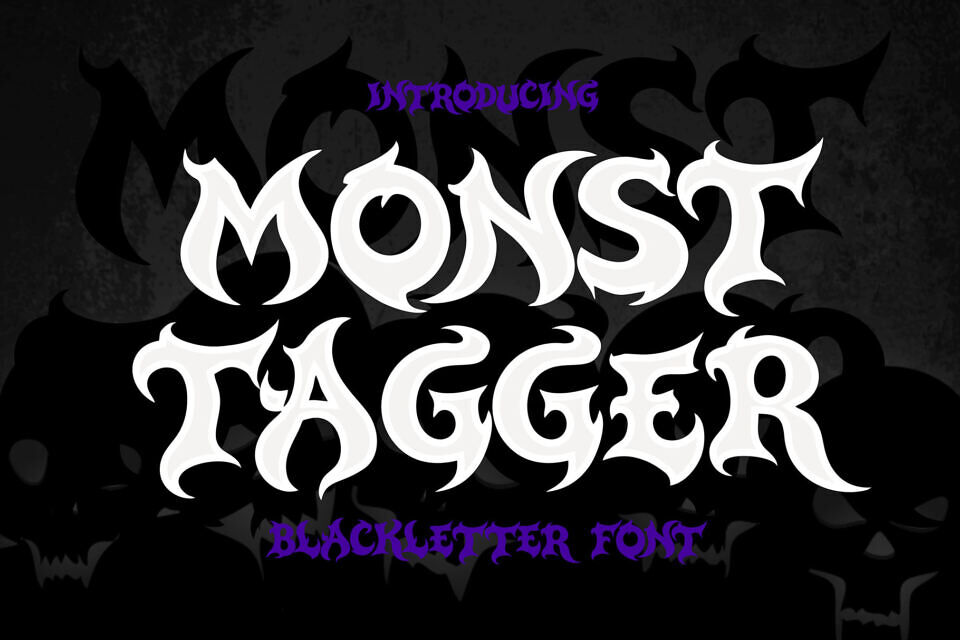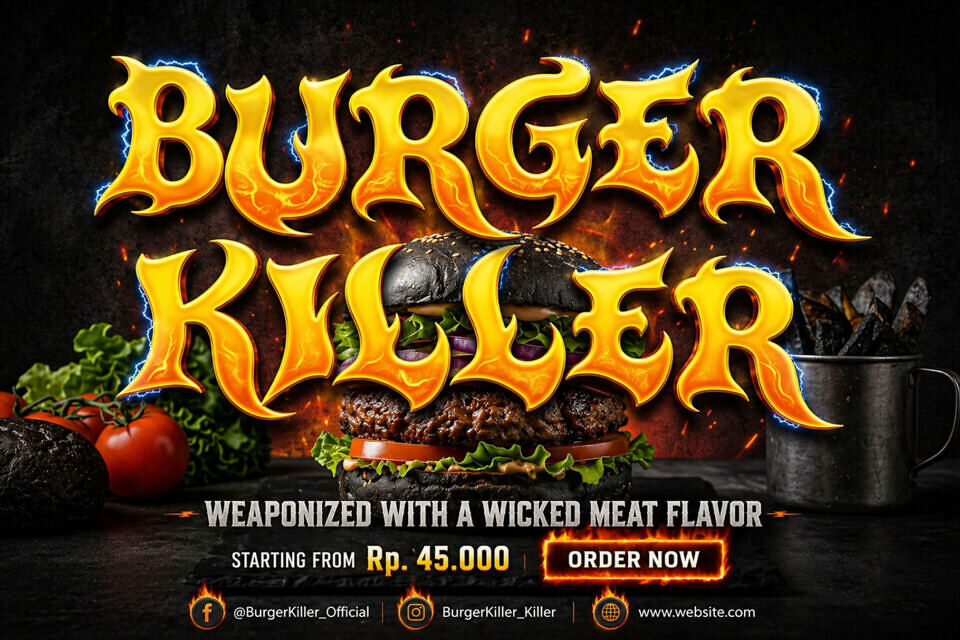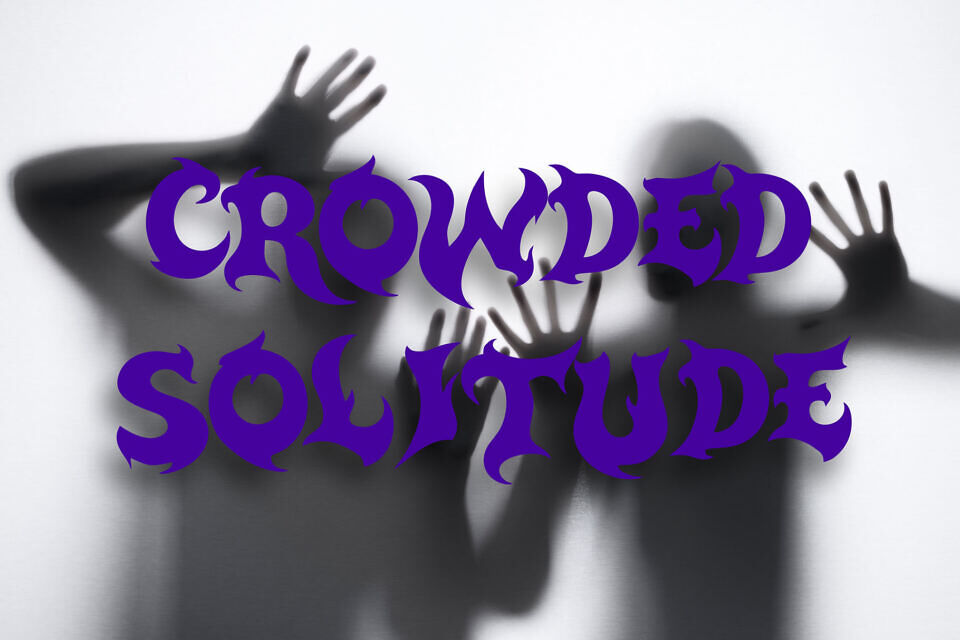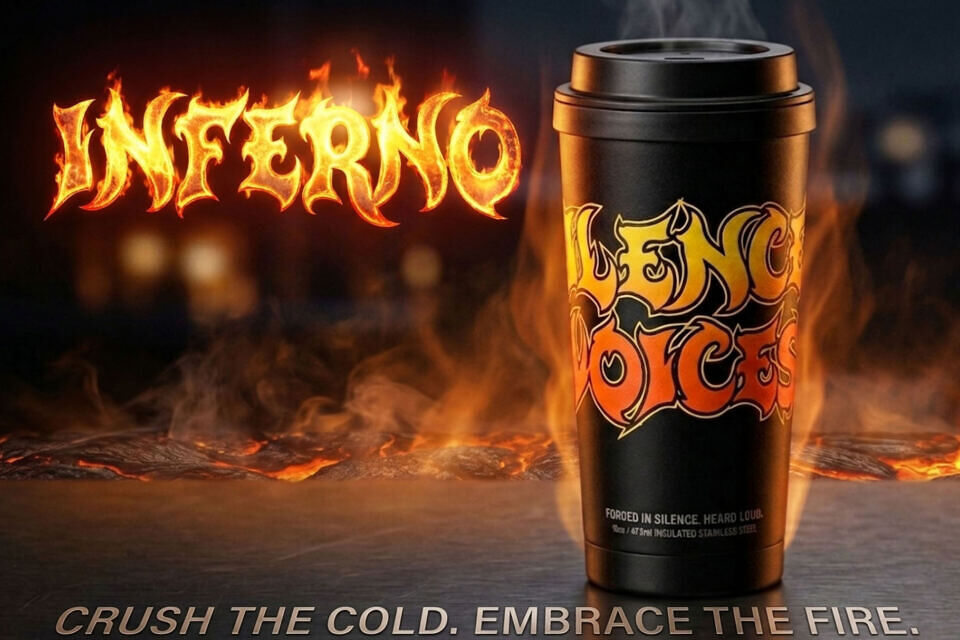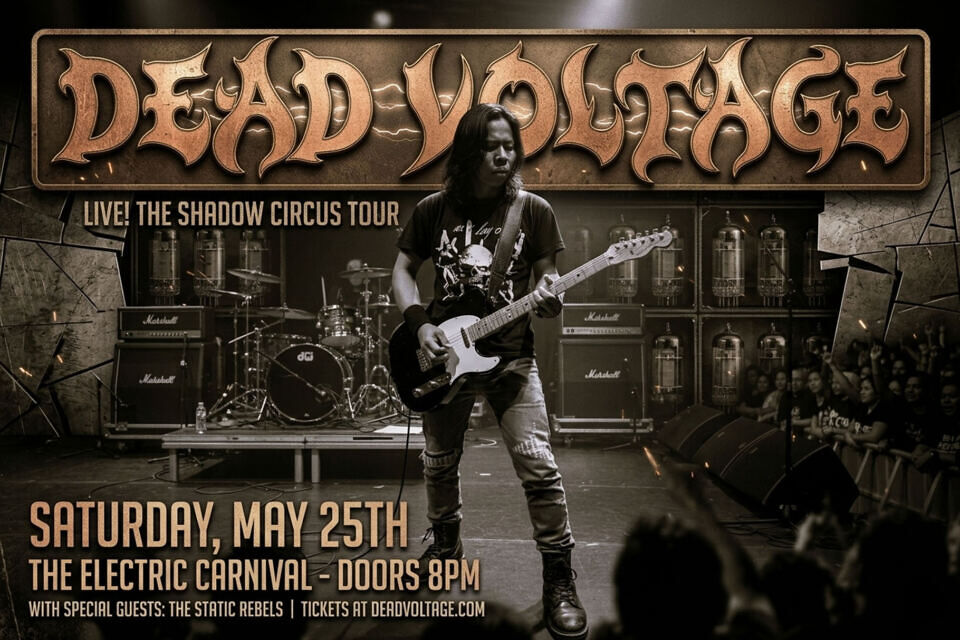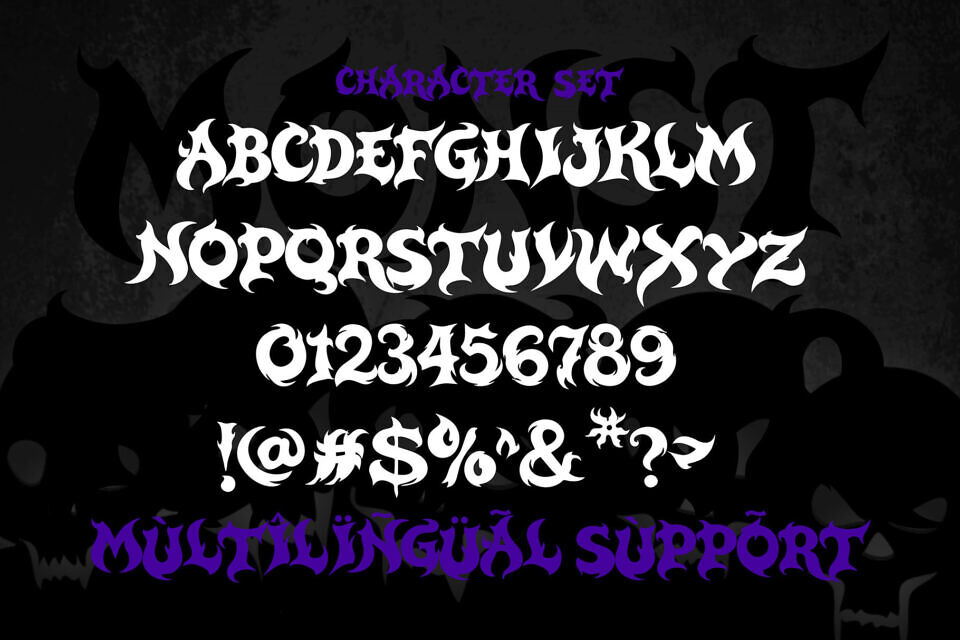
Monst Tagger Font
Monst Tagger is a bold decorative typeface with a dark, gothic aesthetic inspired by blackletter and rock/metal visuals. Its sharp, aggressive strokes and dramatic letterforms create a rebellious, high-impact look, ideal for horror, music, or edgy branding projects. Designed by Cikareotype Studio, it blends classic gothic influences with a modern, expressive “tagger” style.